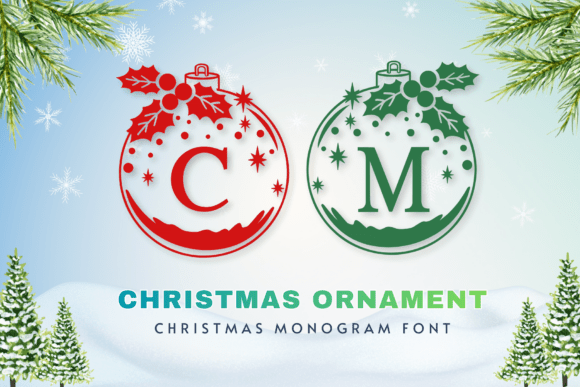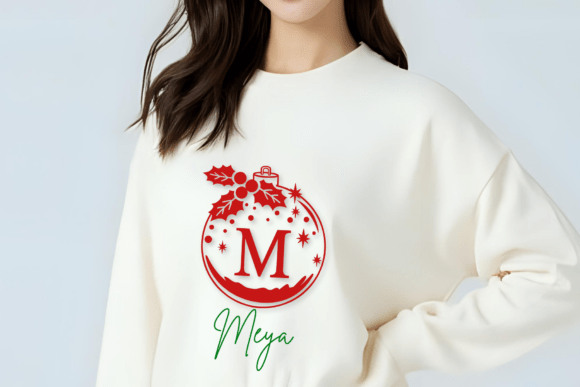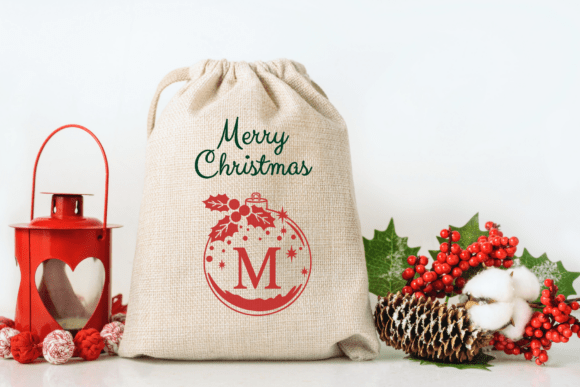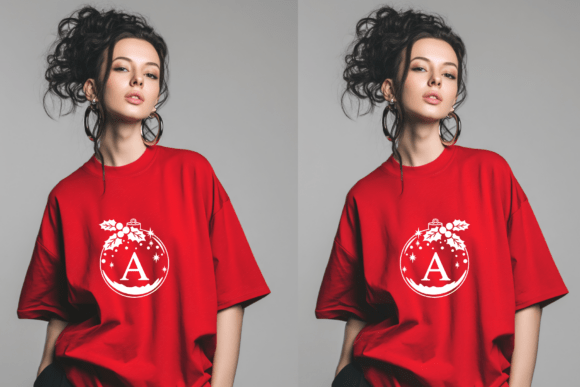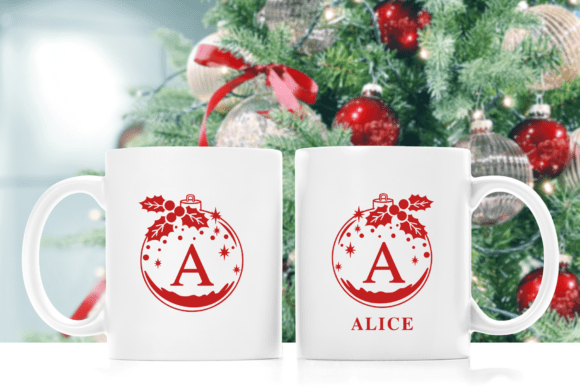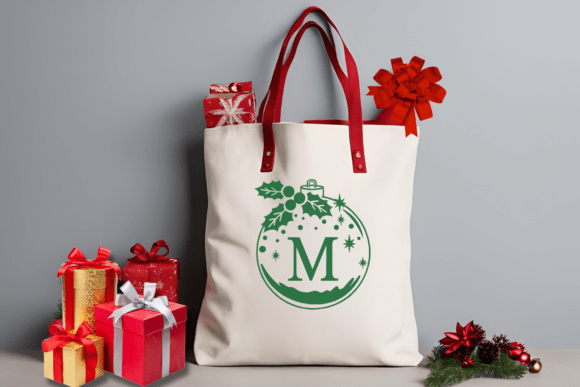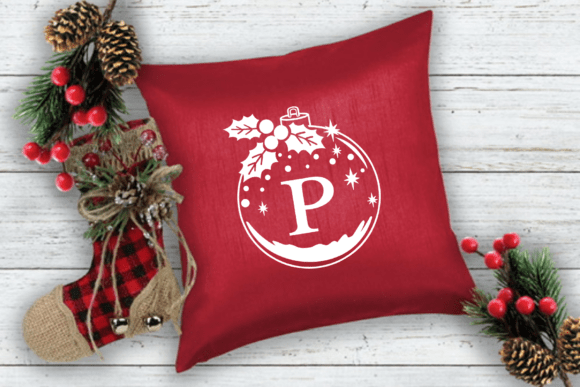
A Touch of Christmas Magic: Unveiling the Christmas Ornament Monogram Font
It’s that time of the year when creativity knows no bounds, and our minds are filled with visions of sugarplums and sparkly decorations. As designers, we’re always on the lookout for that special something to make our Christmas crafts stand out. And, if you’re anything like me, you’ll love the idea of adding a personal touch to your holiday projects.
Enter the Christmas Ornament Monogram Font – a beautiful, festive font that features elegant letters nestled inside classic holiday baubles, complete with holly leaves and sparkling snow accents. This enchanting font is perfect for adding a charming Christmas touch to your crafts, cards, tags, gift labels, banners, shirts, and ornaments. Whether you’re a seasoned designer or a DIY enthusiast, the Christmas Ornament Monogram Font is sure to become your new favorite holiday companion.
Christmas Ornament Monogram Font Key Features
- Unique Ornament Design: Each letter is designed to resemble a miniature Christmas ornament, adding a touch of festive charm to your designs.
- Monogram Support: The font includes a range of monogram combinations, making it perfect for creating personalized Christmas gifts or decorations.
- Christmas-themed Accents: Additional ornaments, garlands, and other Christmas-themed elements are included, allowing for creative design possibilities.
Review of “Christmas Ornament Monogram Font”
I recently had the chance to work with the “Christmas Ornament Monogram Font” and I must say it’s a unique and interesting addition to any holiday design. ✨ The font’s ornate design and intricate details make it perfect for creating personalized and festive monograms. ✨ The font is also highly customizable, allowing users to adjust the size, color, and other attributes to fit their design needs.
However, there are a few limitations to keep in mind. ⚠️ For one, the font can be quite overwhelming if used extensively throughout a design. It’s best to use it sparingly to avoid visual clutter. Additionally, the font may not be suitable for all types of designs, particularly those with a more minimalist or modern aesthetic.
Overall, I think the “Christmas Ornament Monogram Font” is a great choice for holiday designs that need a touch of elegance and whimsy. It’s a fun and creative way to add some personality to your designs. Just be sure to use it judiciously and in conjunction with other design elements that complement its ornate style.
Here are some pros and cons to consider:
- ✨ Unique and ornate design
- ✨ Highly customizable
- ⚠️ Can be overwhelming if used extensively
- ⚠️ May not be suitable for all design styles